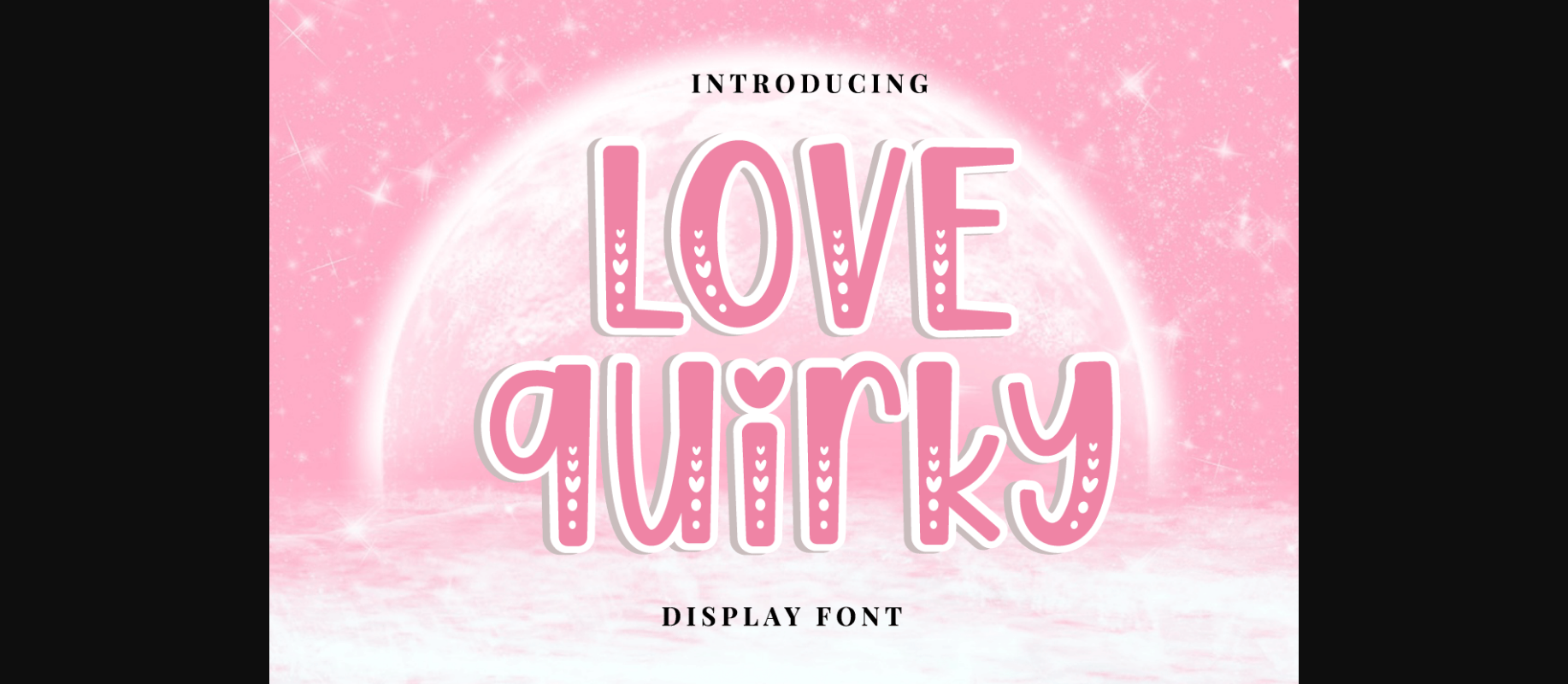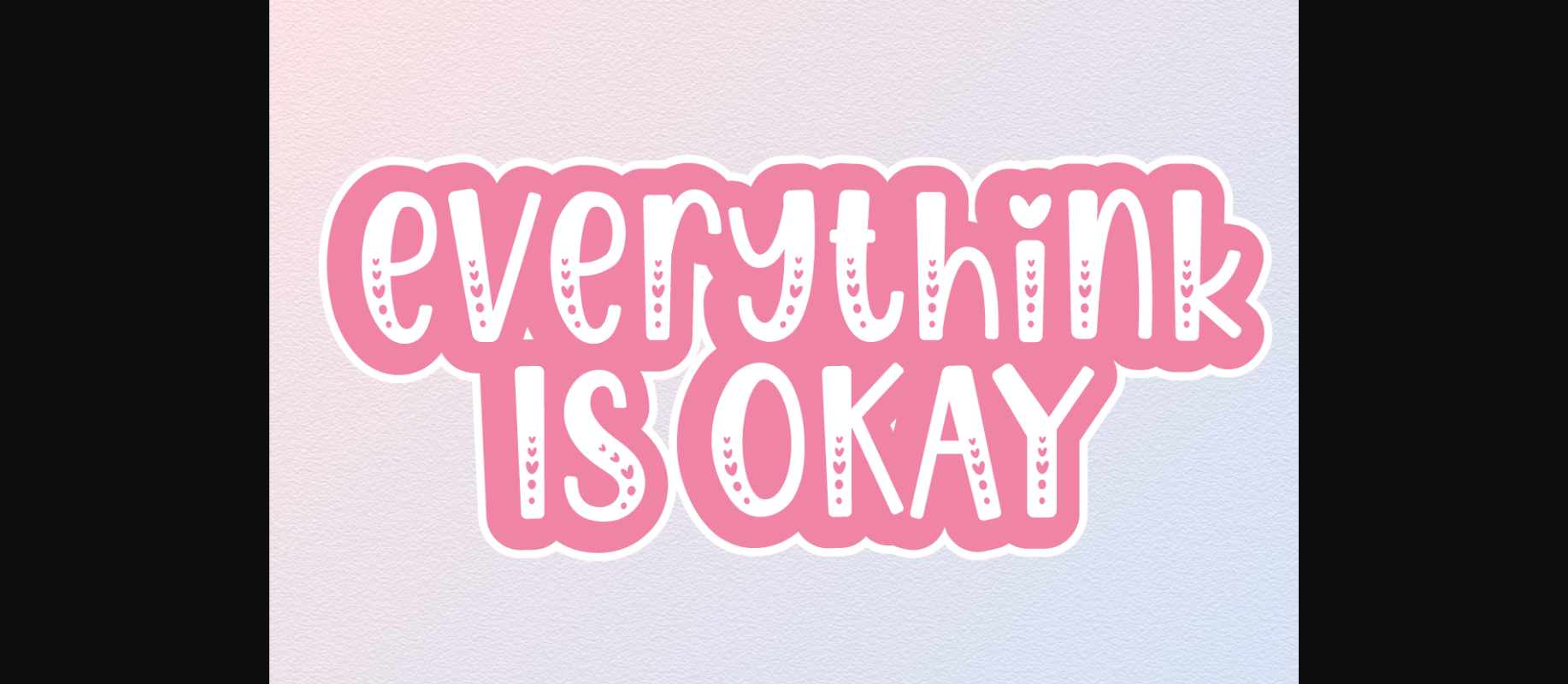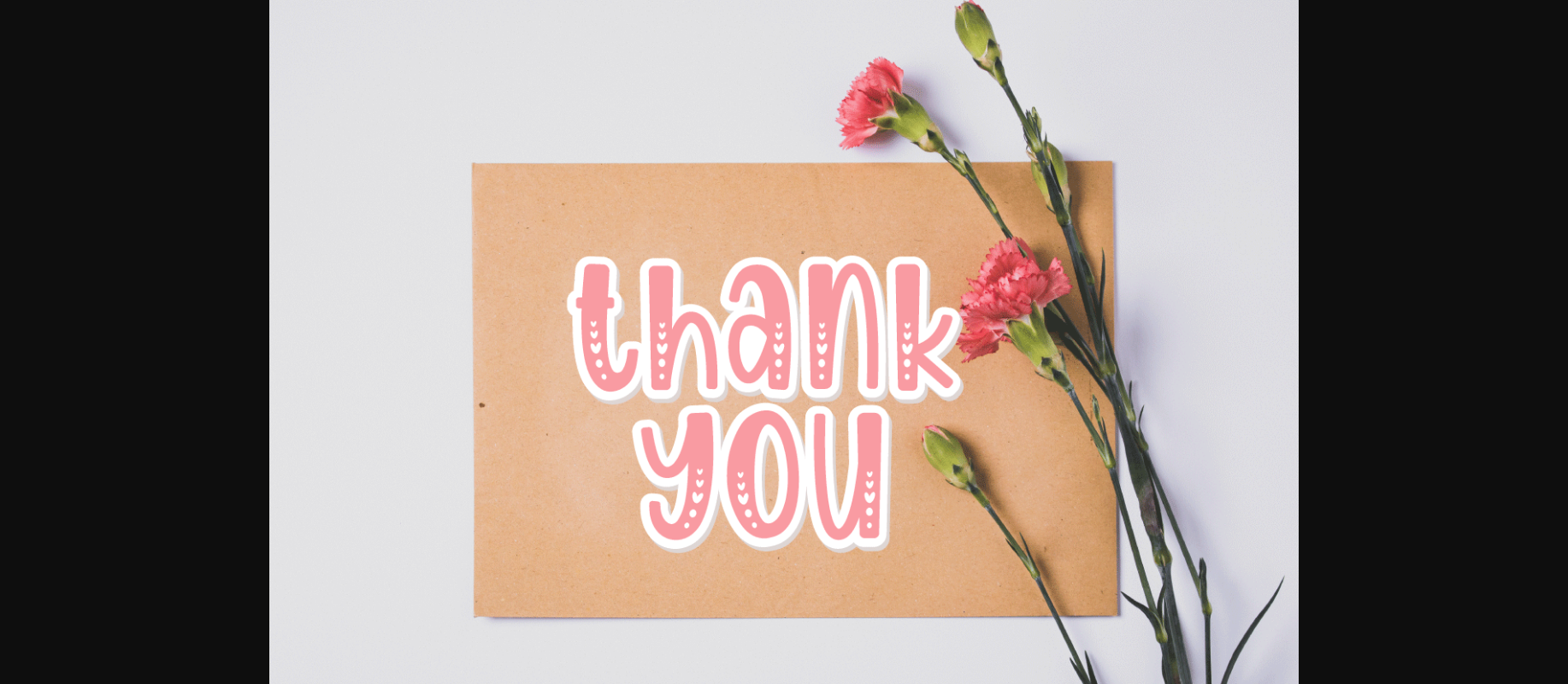
About Love Quirky Font
Love Quirky is a unique and interesting decorative font. Its friendly feel makes this font incredibly versatile, perfect for a wide range of creative projects. It will look stunning on thank you cards, quotes, greeting cards, logos, business cards, and every other design which needs an artistic touch. Add it to your creative ideas, and notice how it makes them stand out!